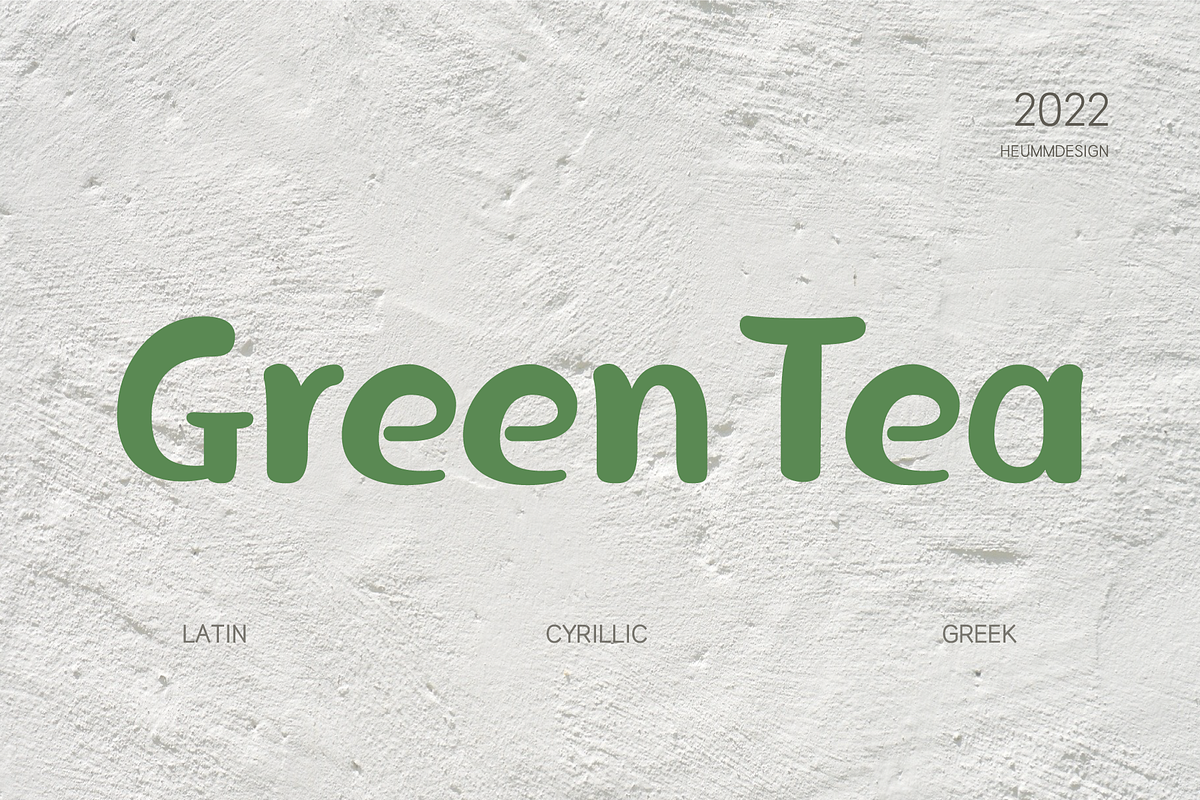
HU Greentea Font Free Download is a refreshing and unique typeface that brings a subtle blend of creativity and calmness to any design. Inspired by nature and organic aesthetics, this font is perfect for eco-friendly branding, packaging design, wellness content, minimalist layouts, and creative social media visuals.
With its smooth curves and modern letterforms, HU Greentea offers a clean yet character-filled look that works beautifully in both print and digital projects. Whether you're designing for a lifestyle brand or a nature-inspired blog, this font helps convey purity, clarity, and creativity with every letter.